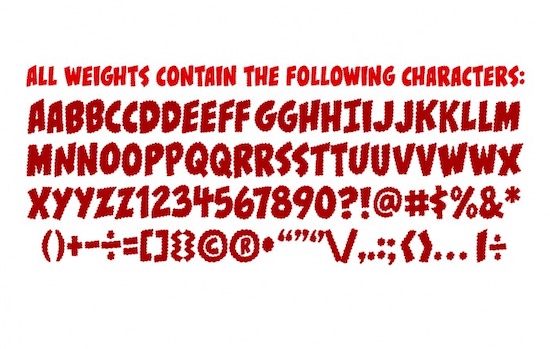
Goosebumps font is a great Fancy font which was designed and released by John Roshell via Comicraft. Goosebumps is a popular special Comic font family and it has 2 gorgeous styles.
Goosebumps font is inspired by children’s display by its strange and unique appearance. Along with Script Comic and so much cheerful. Goosebumps is a display Comic font and fun-looking font.
Goosebumps font is perfectly made for your social media posts, brand imagery, merchandise, music projects, logo designs, event poster, handwritten quotes, product packaging, and so on.